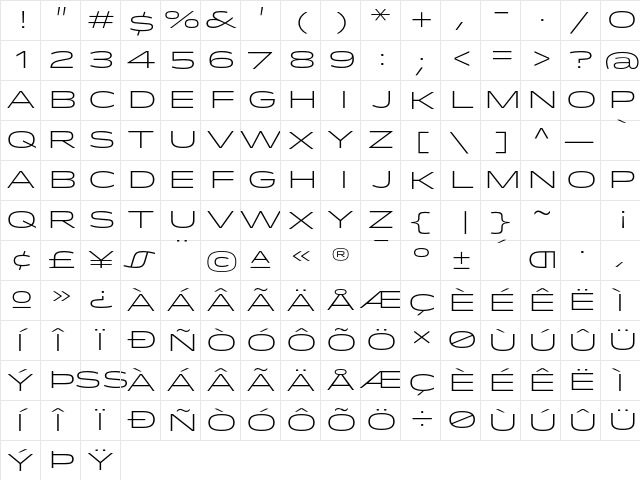
Idlewild Light
| Foundry | Hoefler & Frere-Jones |
| Designer | Hoefler & Frere-Jones |
Design Context for Idlewild Typeface
Idlewild is a composed and adaptable typeface that performs quietly and consistently across a wide range of design contexts. Its slender proportions lend an understated elegance to any composition.